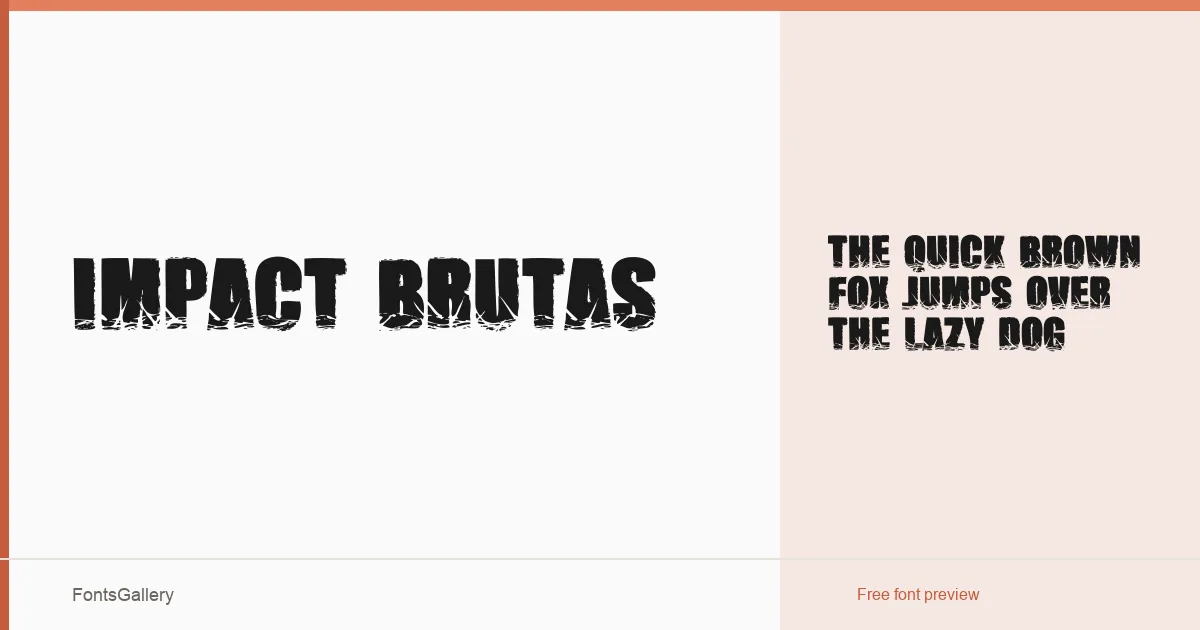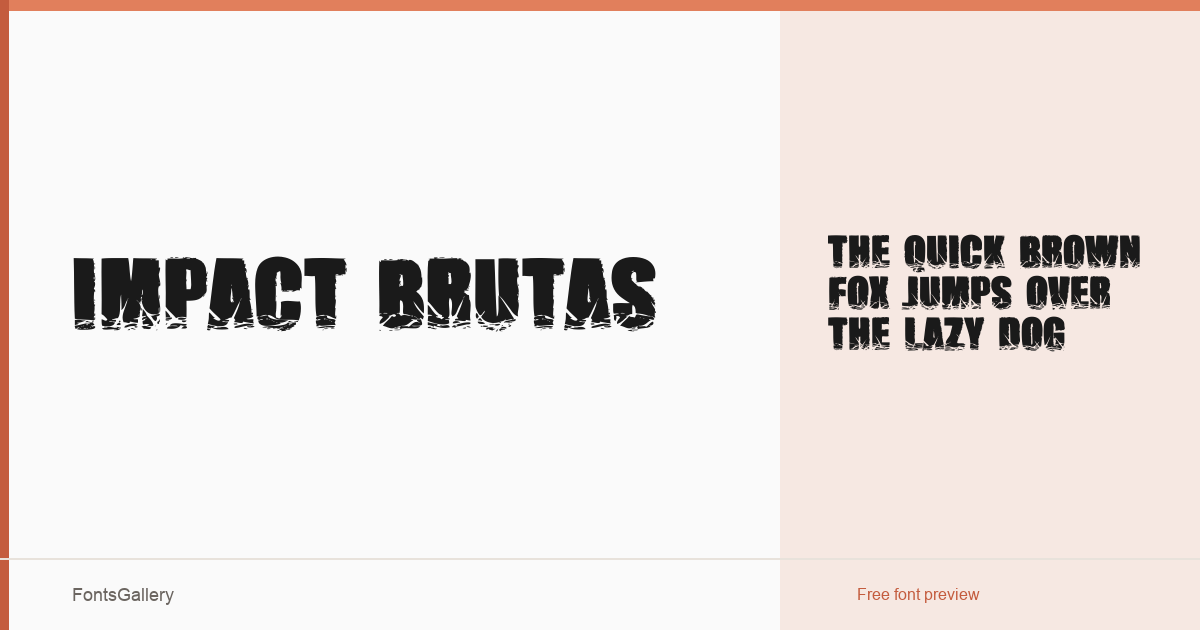
About Impact Brutas Font
Impact Brutas is a display typeface designed by Chris Vile and released through Font Monger. Built for maximum visual impact, it blends vintage character with bold, raw energy that commands immediate attention. This typeface is crafted for creatives who want to make a strong, unapologetic statement in their designs.
Impact Brutas carries a rugged, grunge-infused aesthetic that draws from vintage and rustic design traditions. Its letterforms are bold and assertive, with rough, textured qualities that give each character a weathered, hand-crafted feel. The result is a typeface that feels both powerful and authentically worn, perfectly suited to designs that demand grit and personality.
Impact Brutas excels in high-visibility applications such as posters, advertisements, headlines, signage, and T-shirt designs where bold visual presence is essential. Its vintage and grunge character makes it a natural fit for brands, events, or campaigns that want a raw, edgy aesthetic. For a balanced typographic composition, consider pairing it with the clean neutrality of Helvetica or the complementary style of Aresink.